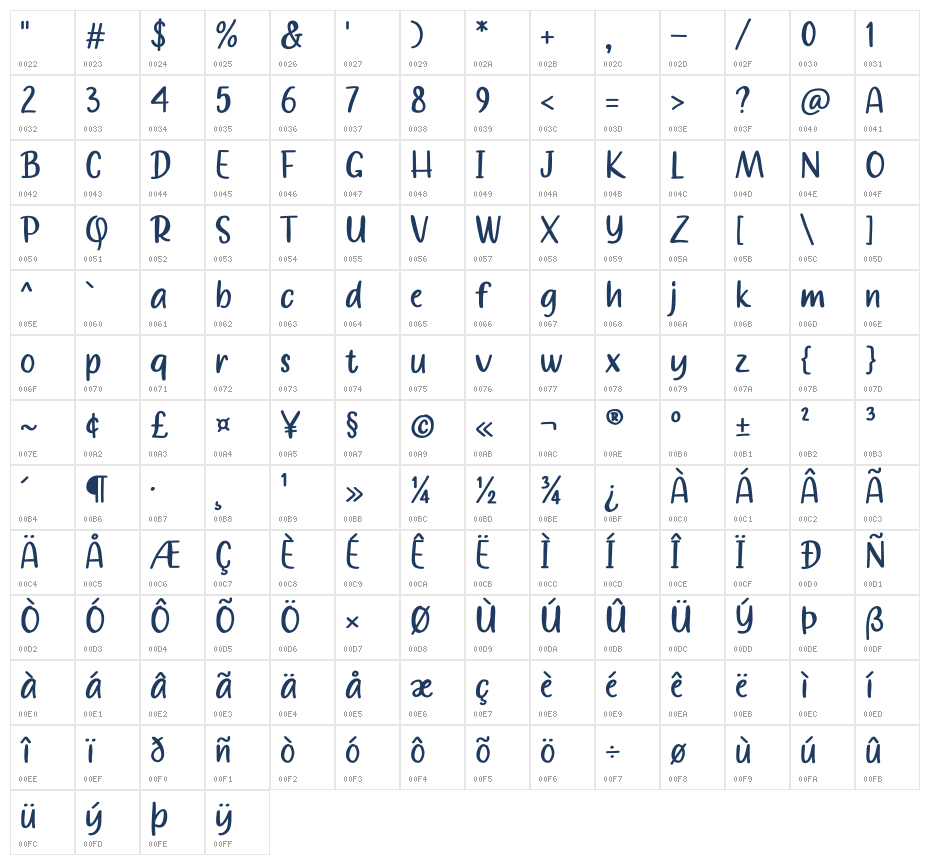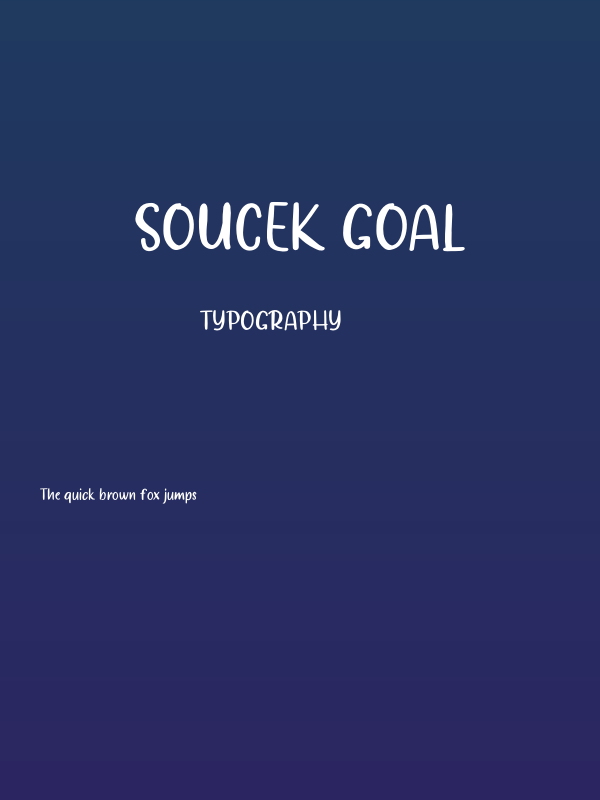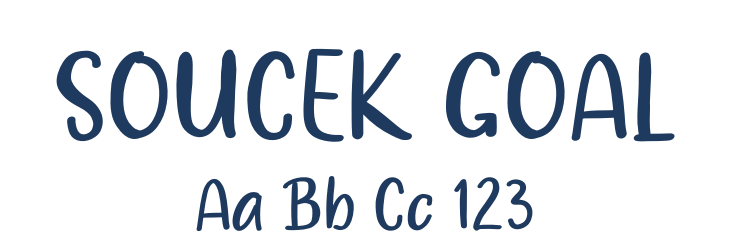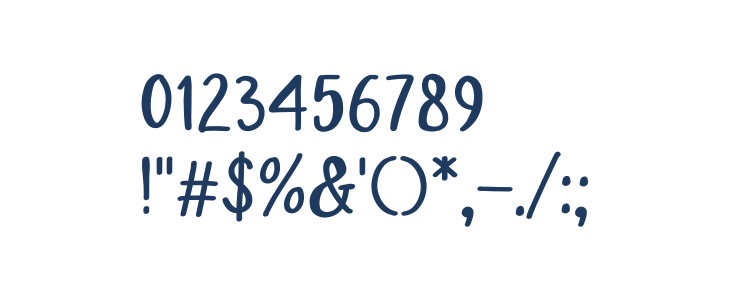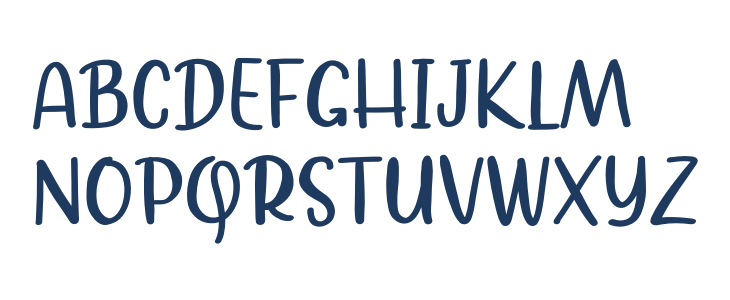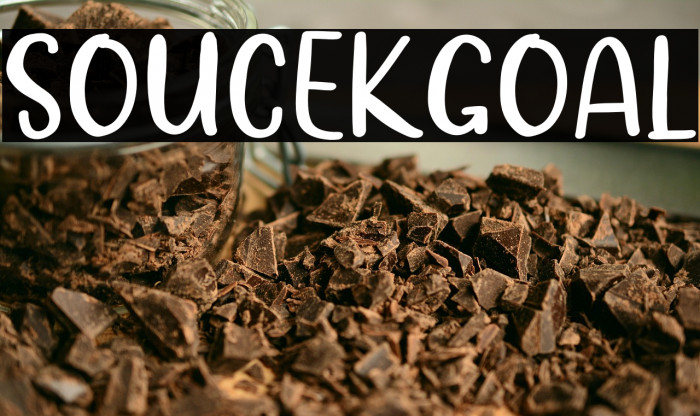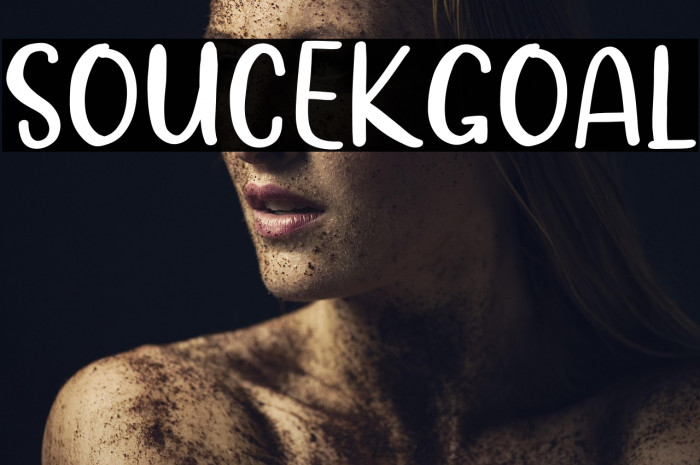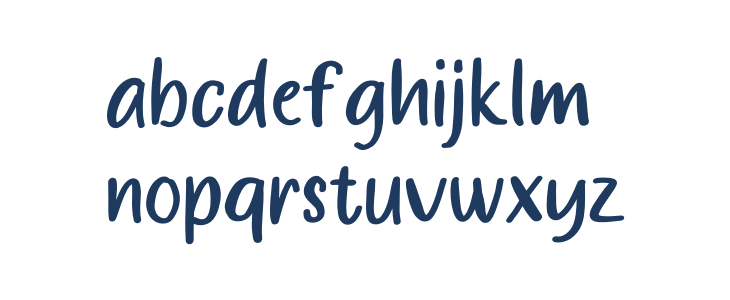
SOUCEK GOAL Font
SOUCEK GOAL Description
A playful, handwritten style font with rounded, casual letterforms and a slightly irregular stroke weight, giving it an informal and friendly appearance.
| Overall Style | Casual, Friendly, Handwritten |
| Use Case | Headlines, Body text, Logos, Invitations |